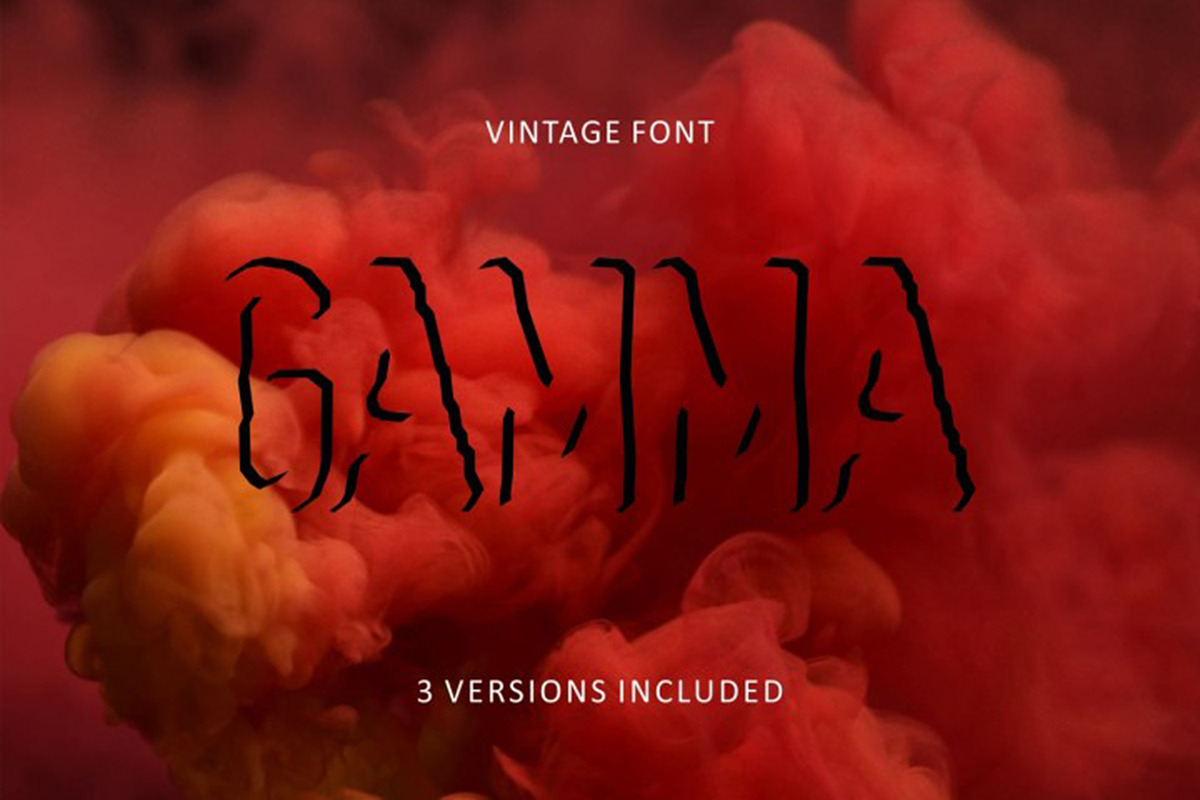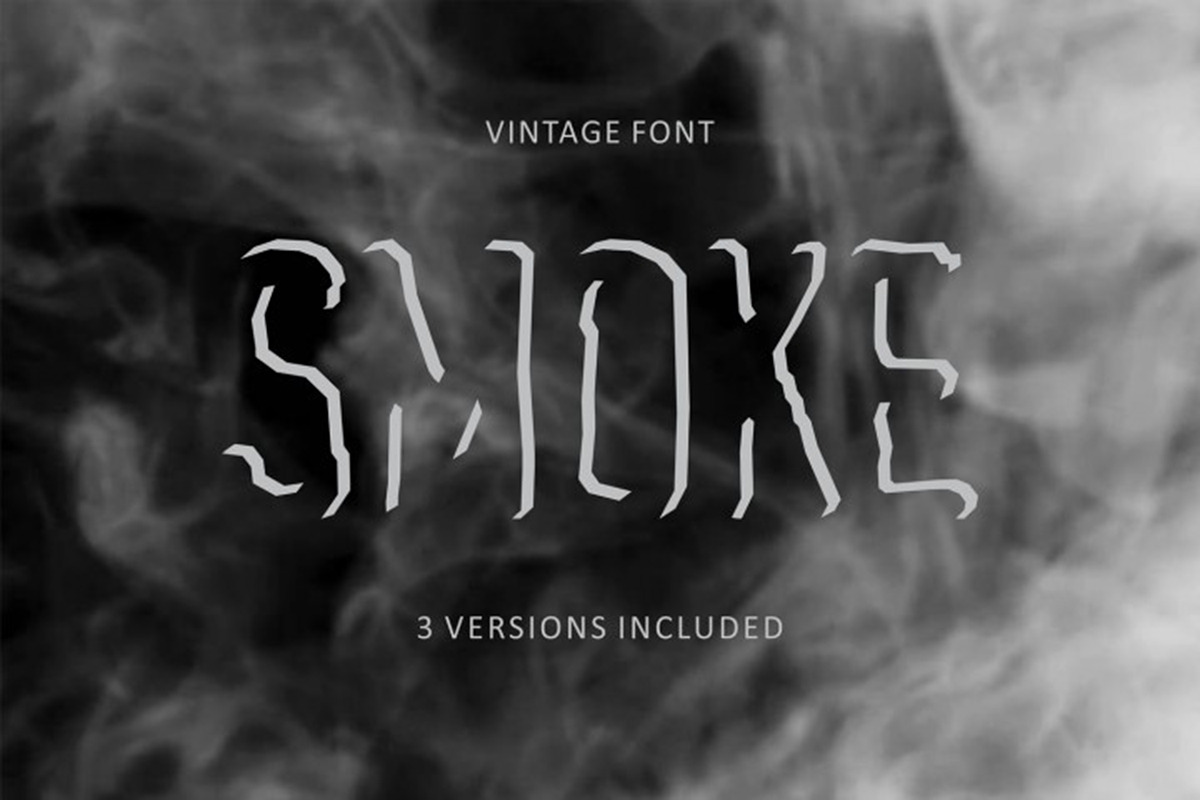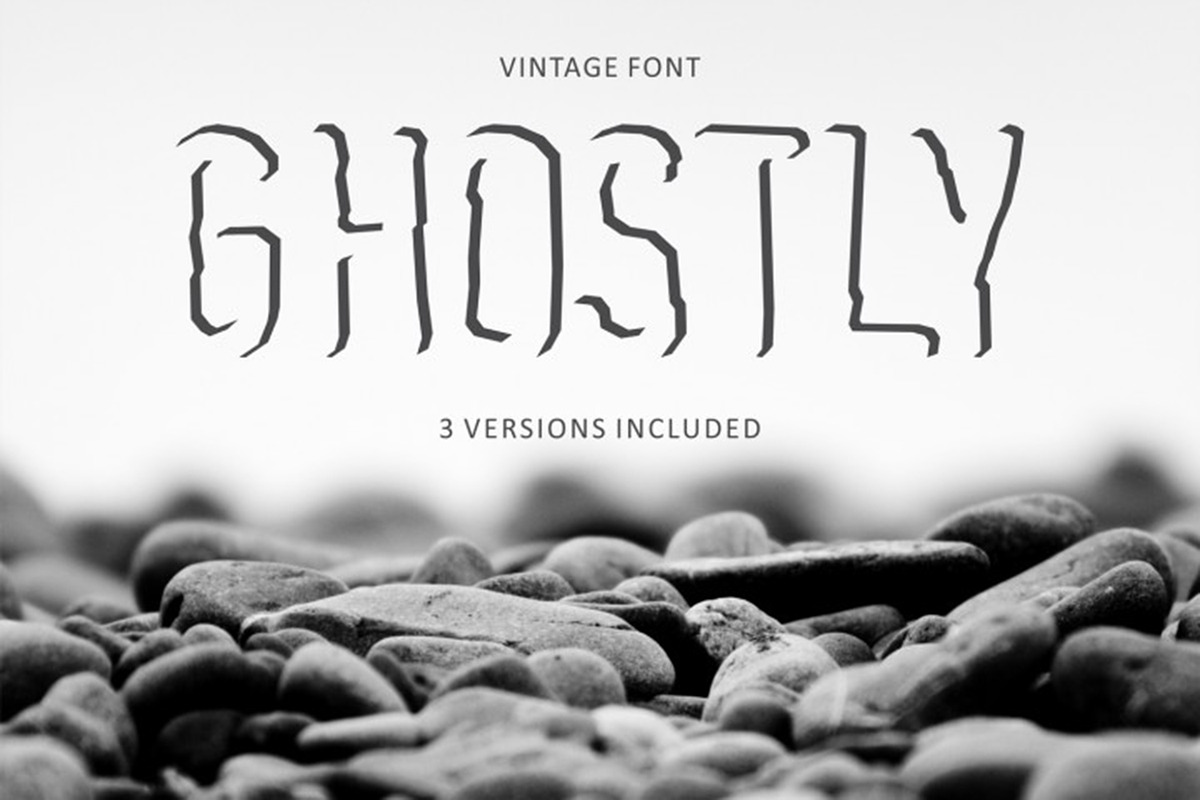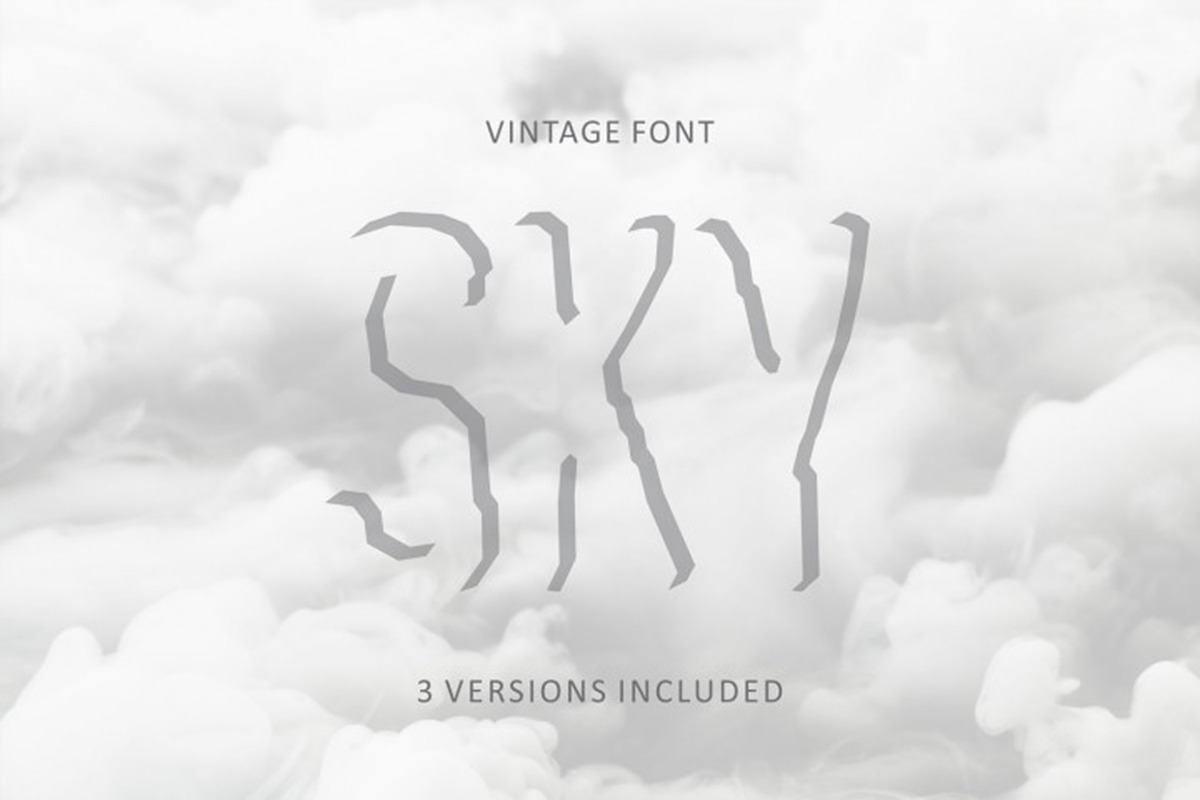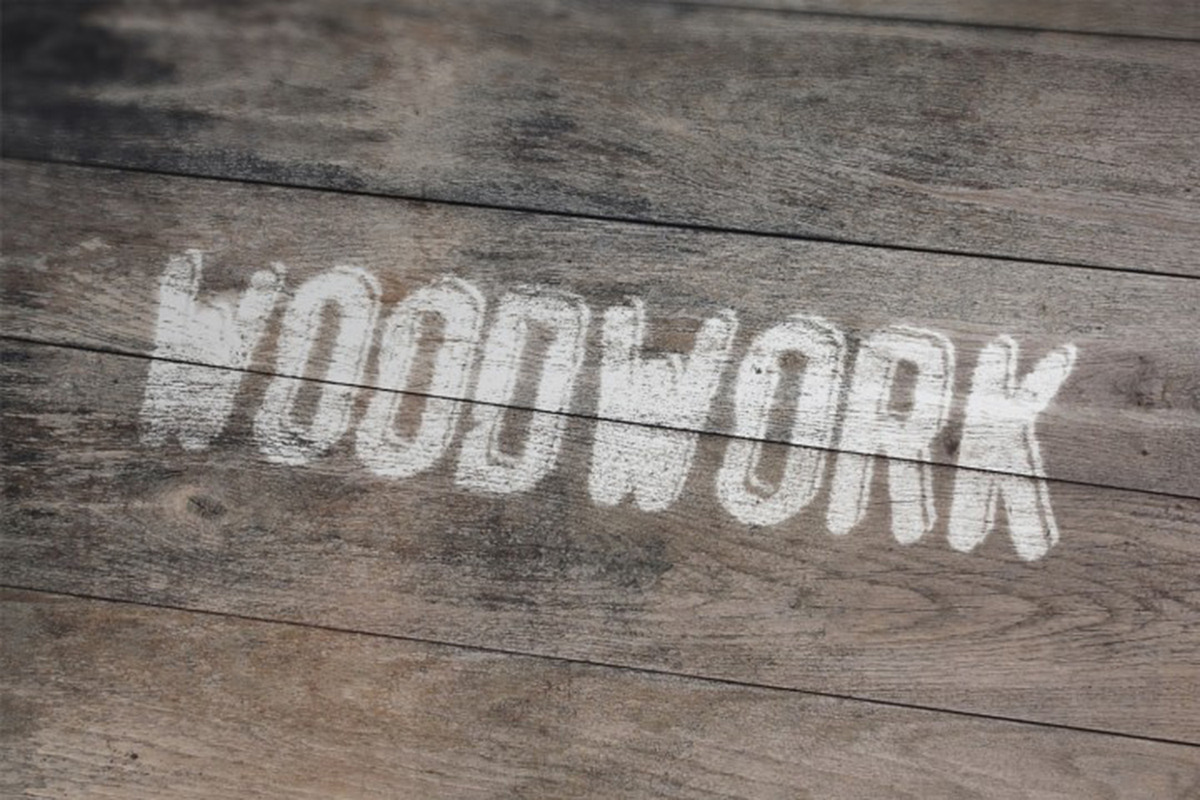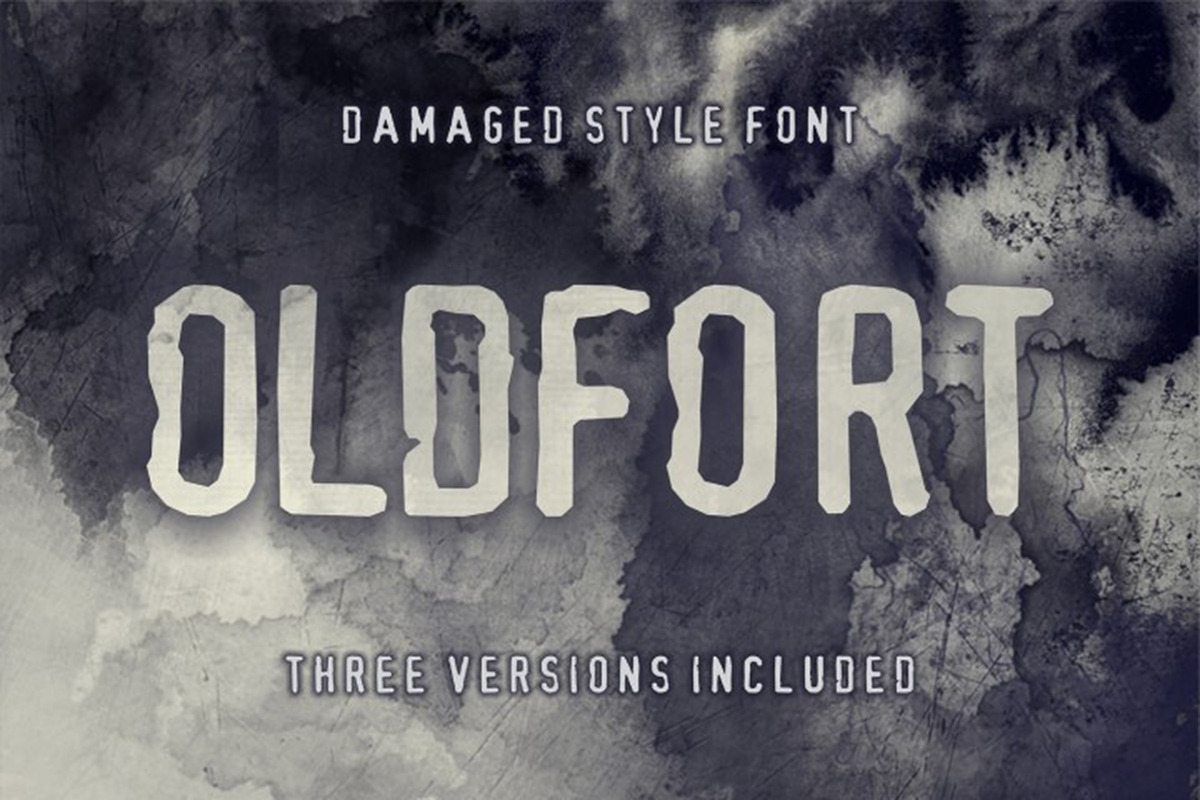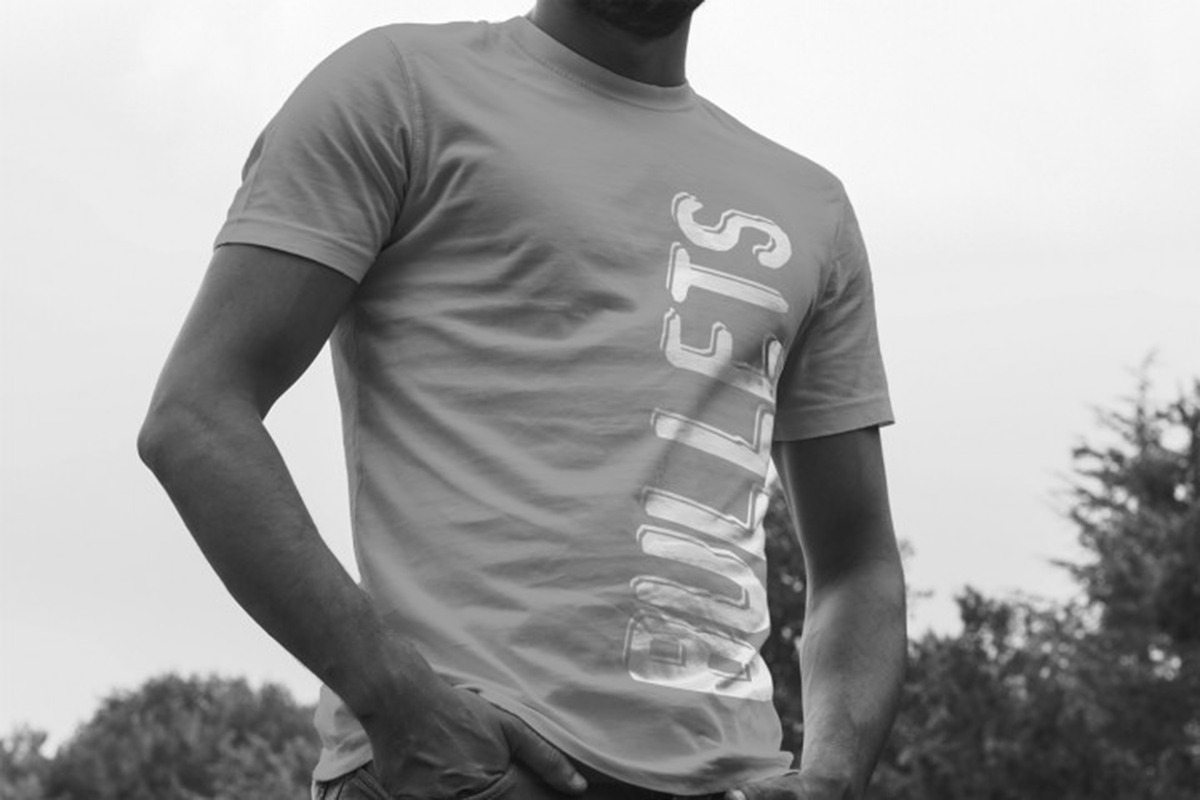
Bullseye shadowed font in 3 versions
Bullseye stylized font is looks like shadowed damaged font. Powerful usage of this font is expected in the meaning of an excellence in presentation of any design work. Typeface Bullseye is for highly visible and trend items. The font usage may vary but not limited to any occasion you may use it in designs as well as simple, also as in complex creative situation. This font has stylish shadow that can be incorporated with great number of design needs.